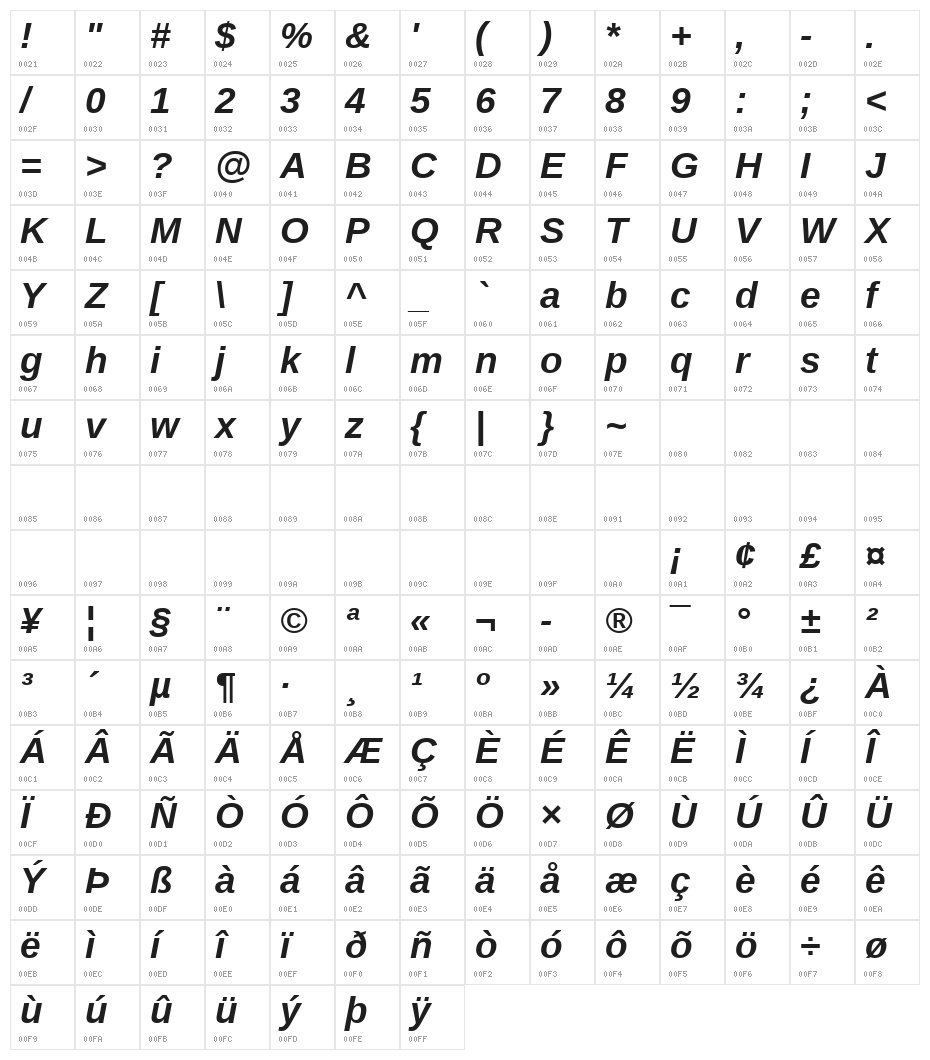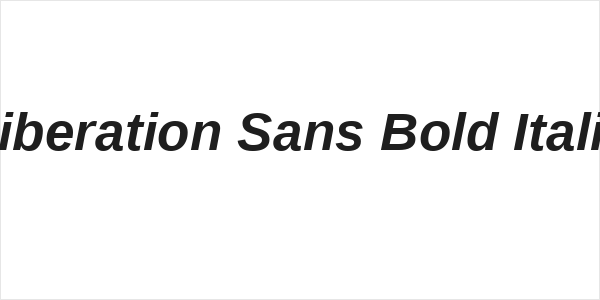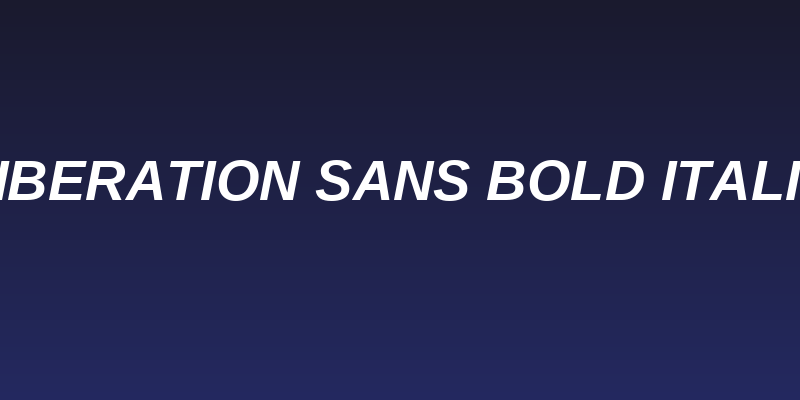
Liberation Sans Bold Italic Font
Liberation Sans Bold Italic Description
This font exhibits a clean and modern sans-serif style with a bold and italicized appearance. The characters are slightly slanted, giving a dynamic and forward-moving impression. The strokes are consistent and uniform, providing a strong and confident look. The font maintains excellent legibility across both uppercase and lowercase letters, as well as numerals and special characters. Its design is straightforward yet impactful, making it suitable for a variety of applications where clarity and emphasis are needed.
| Use Case | Headlines, Logos, Advertising |
| Proposed Projects | Ideal for branding, advertising, headlines, and digital content where a strong, modern presence is required. |